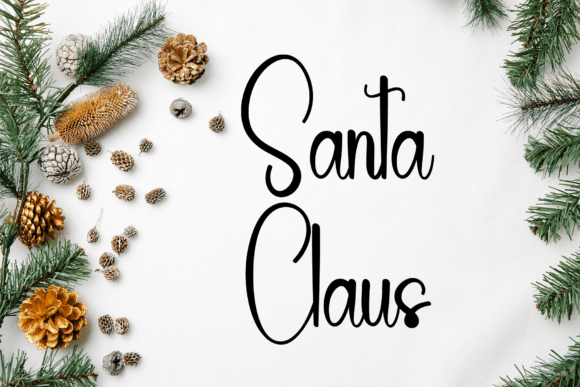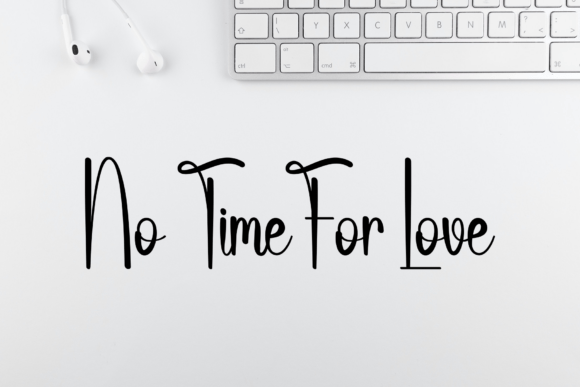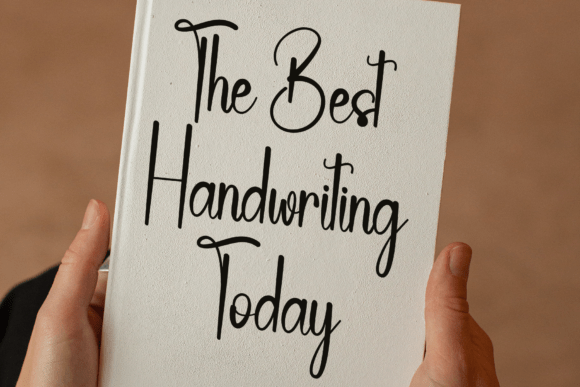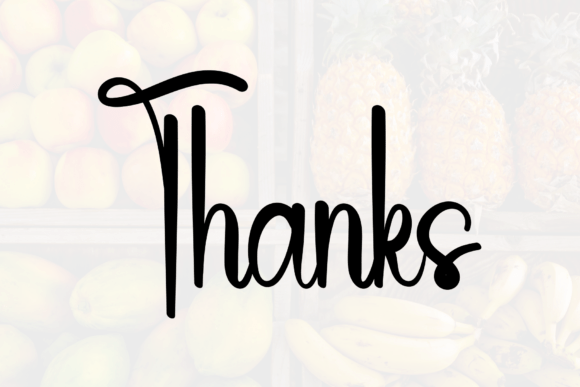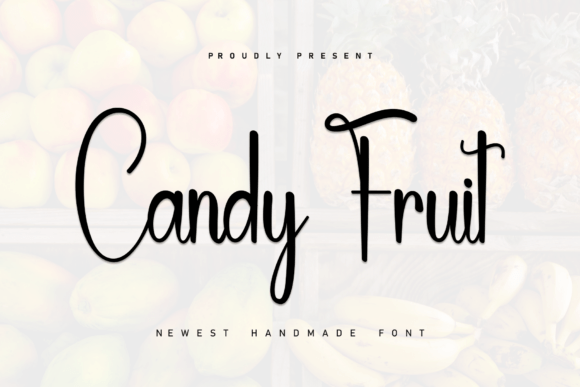
Candy Fruit Font: The Perfect Handwritten Style for Your Design Needs
Are you looking for a font that can add a touch of elegance and casualness to your designs? Look no further than the Candy Fruit Font. This beautiful handwritten font is designed to resemble marker-drawn letters, giving it a relaxed and sporty feel that’s perfect for a wide range of design applications.
What is Candy Fruit Font?
Candy Fruit Font is a unique and stylish handwritten font that’s perfect for designers and crafters who want to add a personal touch to their work. Its marker-drawn style gives it a distinctive look that’s both elegant and casual, making it suitable for a variety of design projects. Whether you’re creating branding materials, logos, wedding supplies, greeting cards, or marketing promotions, Candy Fruit Font is the perfect choice.
Key Features of Candy Fruit Font
- Handwritten style: Candy Fruit Font has a beautiful handwritten style that looks like it was drawn with a marker.
- Relaxed and sporty feel: The font has a relaxed and sporty feel that’s perfect for designs that need to convey a sense of casual elegance.
- Versatile: Candy Fruit Font is suitable for a wide range of design applications, including branding, logos, wedding supplies, greeting cards, fashion, lookbooks, and marketing promotions.
- Luxurious and elegant: Despite its casual feel, Candy Fruit Font has a luxurious and elegant quality that makes it perfect for designs that need to convey sophistication.
Design Applications for Candy Fruit Font
Candy Fruit Font is a versatile font that can be used in a wide range of design applications. Here are some ideas to get you started:
- Branding: Use Candy Fruit Font to create unique and stylish branding materials, such as logos, business cards, and letterheads.
- Wedding supplies: Add a touch of elegance and whimsy to your wedding supplies, such as invitations, programs, and place cards.
- Greeting cards: Use Candy Fruit Font to create beautiful and personalized greeting cards for special occasions.
- Fashion: Add a touch of style and sophistication to your fashion designs, such as lookbooks, catalogs, and advertisements.
- Marketing promotions: Use Candy Fruit Font to create eye-catching and effective marketing promotions, such as flyers, brochures, and social media graphics.
Why Choose Candy Fruit Font?
There are many reasons why you should choose Candy Fruit Font for your design needs. Here are just a few:
- Unique style: Candy Fruit Font has a unique and distinctive style that’s sure to set your designs apart.
- Elegant and casual: The font has a luxurious and elegant quality that’s balanced by a casual and relaxed feel.
- Versatile: Candy Fruit Font can be used in a wide range of design applications, making it a great addition to your font library.
Candy Fruit Font is a beautiful and versatile handwritten font that’s perfect for designers and crafters who want to add a touch of elegance and casualness to their designs. With its unique marker-drawn style, relaxed and sporty feel, and luxurious and elegant quality, Candy Fruit Font is the perfect choice for a wide range of design applications. Whether you’re creating branding materials, wedding supplies, greeting cards, or marketing promotions, Candy Fruit Font is sure to become a favorite in your font library.